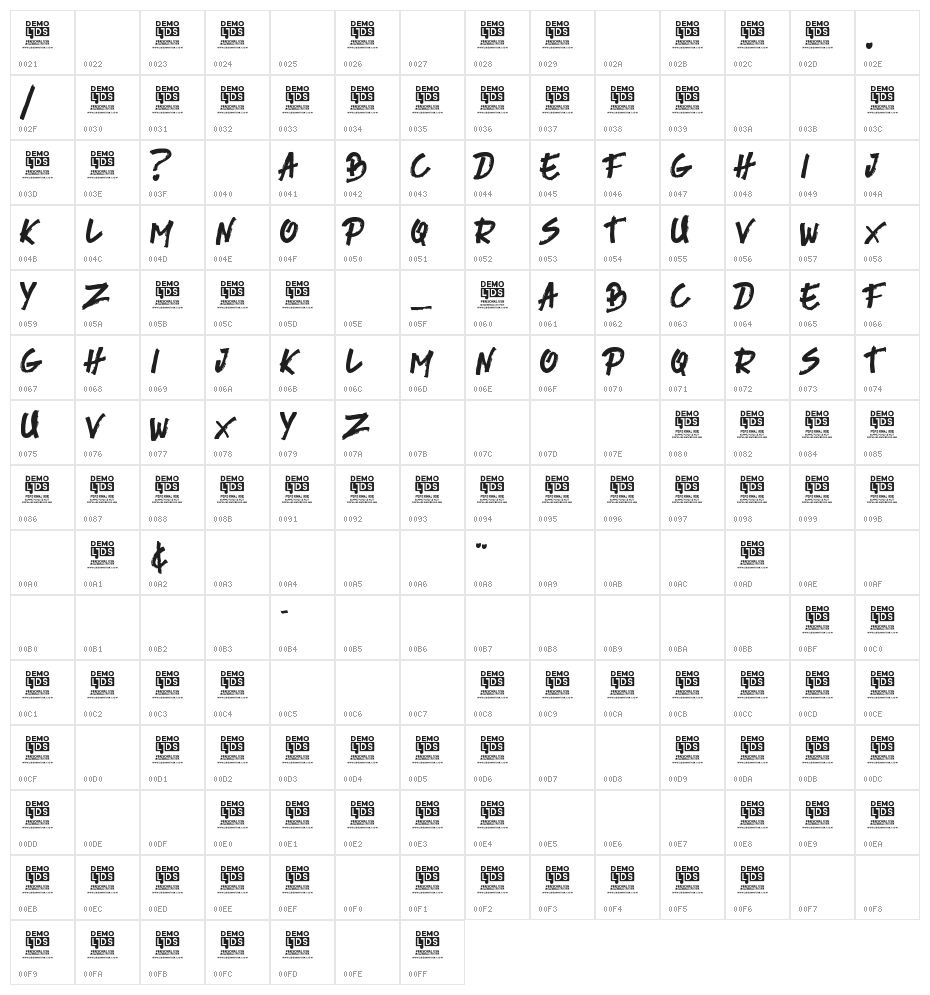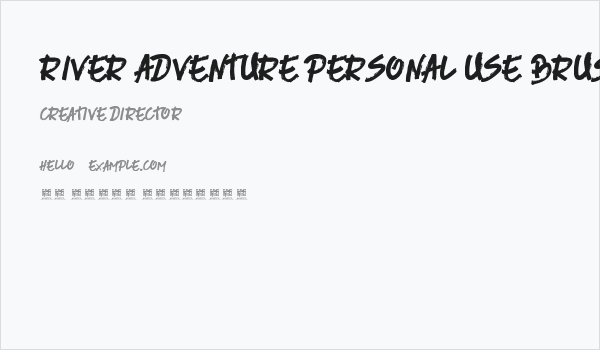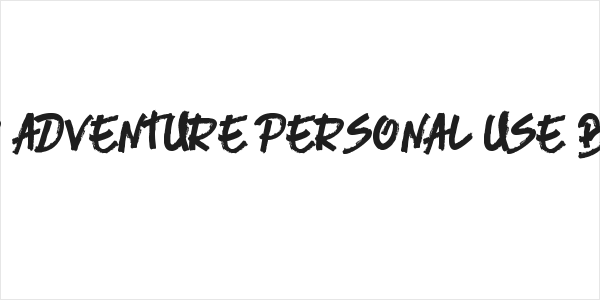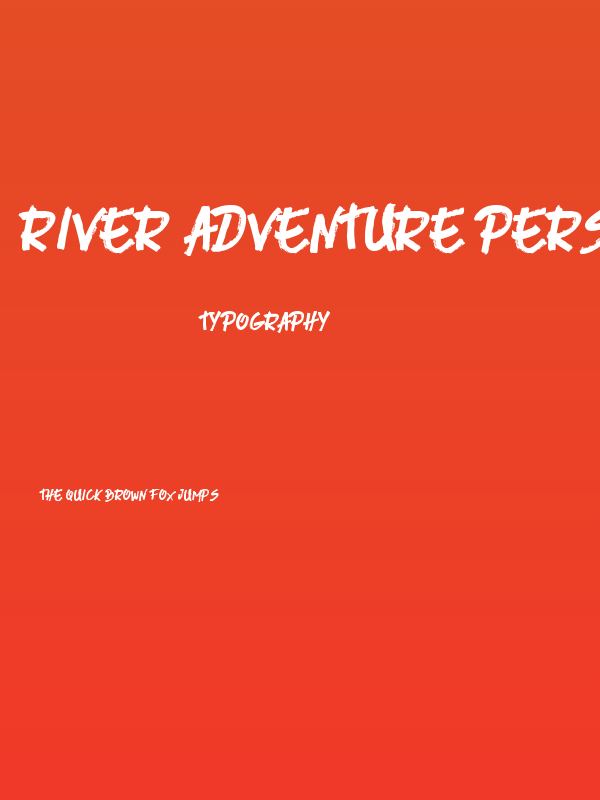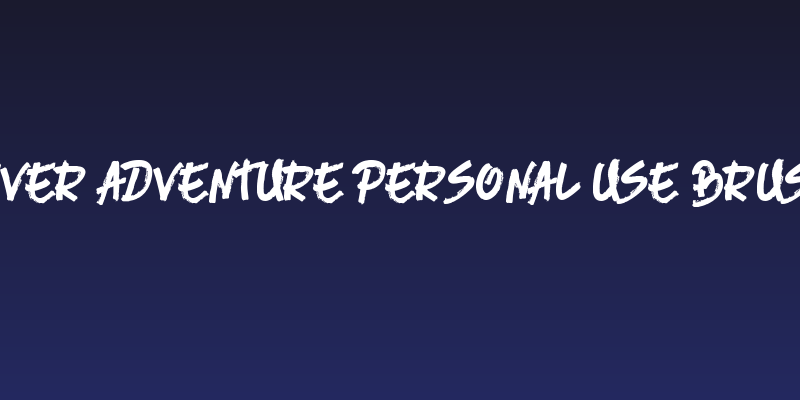
River Adventure Personal Use Brush Font
River Adventure Personal Use Brush Description
This font features a bold, brush-like appearance with a dynamic and energetic style. The strokes are uneven, giving it a hand-painted look that adds a sense of movement and spontaneity. The characters are slightly slanted, enhancing the casual and informal feel. The uppercase letters are prominent and expressive, while the lowercase letters maintain a consistent flow. The texture of the strokes is rough, with visible brush marks that contribute to its artistic and creative vibe. This font is ideal for projects that require a personal touch or a bold statement.
Proposed ProjectsIdeal for posters, branding, social media graphics, and creative projects requiring a bold, artistic touch.